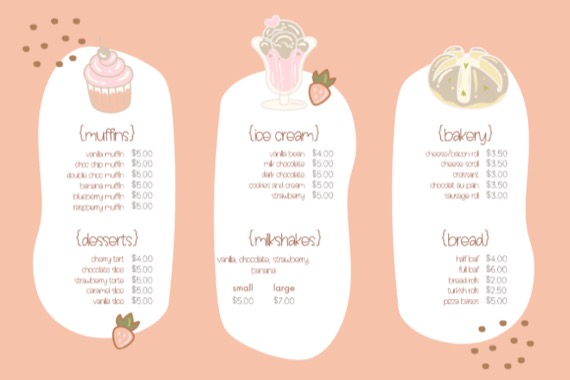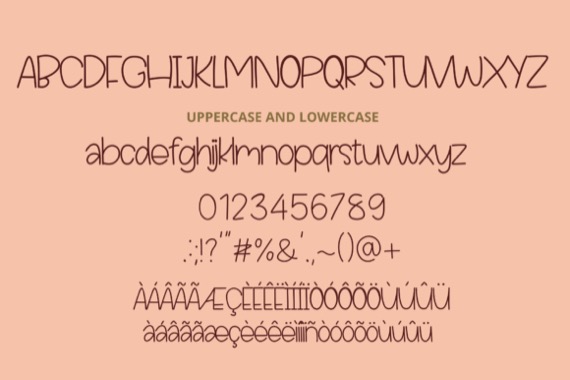
Everyday Note is a cute and friendly handwritten font that was created and published by Nstudio Design. It will add elegance and class to any of your design projects. This font can be used to write various kinds of products according to the aspect of each need, projects, logos, wedding designs, social media posts, advertisements, product packaging, product designs, label, photography, watermark, invitation, stationery, and any other projects. and much more!
Everyday Note Handwritten Font